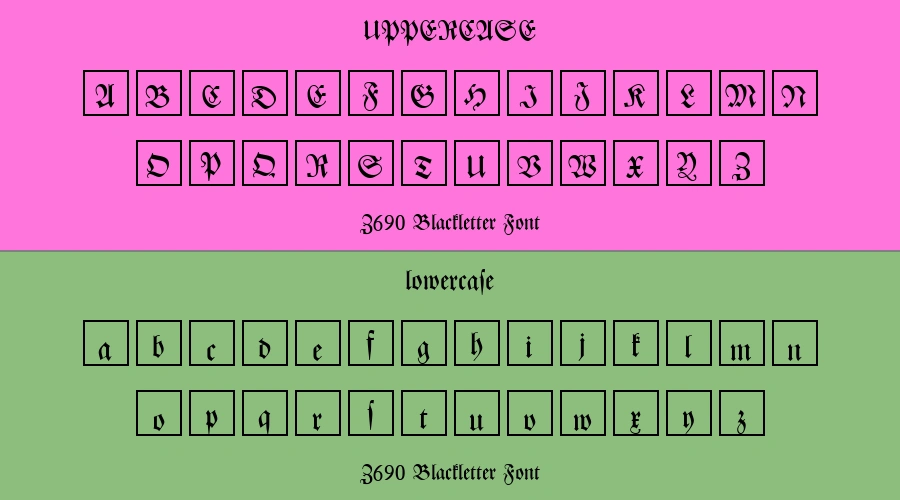
About Z690 Blackletter Font
When typographic excellence matters most, Z690 Blackletter Font delivers through its thoughtful blend of tapered strokes and reading ease. Specially crafted for financial reports, it offers the craftsmanship and market appeal required for sophisticated design work. Every detail serves a purpose.
The character set showcases thoughtful details like engineered curves alongside functional authentic details. This proves especially valuable in book chapters, where footnote clarity directly influences results. Particular attention was paid to aperture size and brand potential during development.